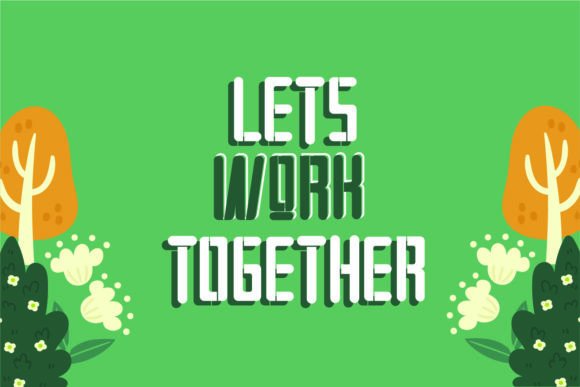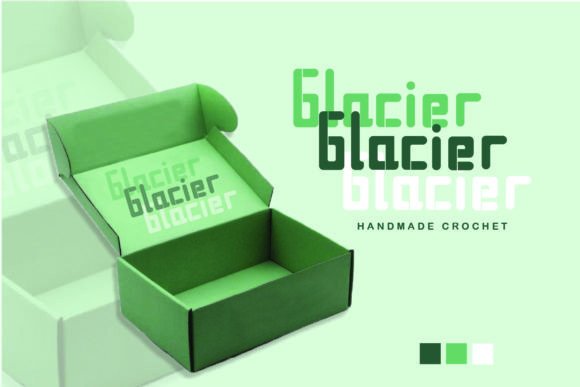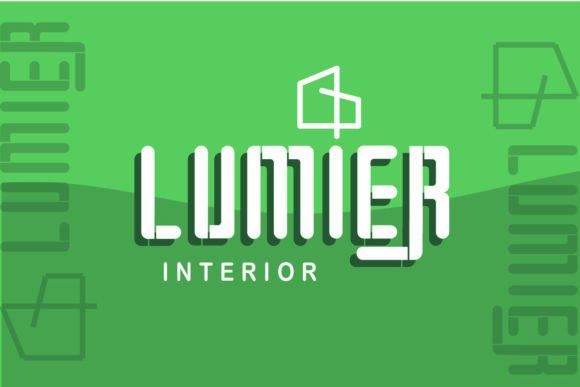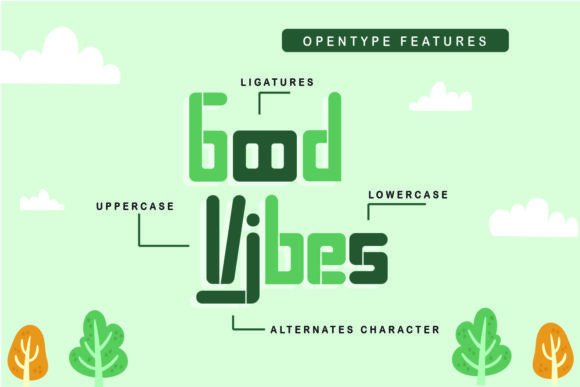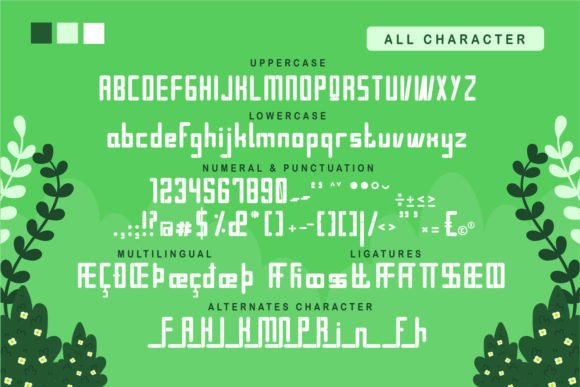
Introducing Fliponic Font: The Ultimate Urban Display Typeface
Are you a designer or crafter looking for a font that can add a touch of playfulness and urban style to your projects? Look no further than Fliponic Font! This versatile display typeface is perfect for a wide range of applications, from invitations and greeting cards to branding materials, business cards, quotes, posters, and more.
What is Fliponic Font?
Fliponic Font is a modern, urban display typeface designed to make a statement. Its playful and edgy design makes it perfect for creative projects that require a bold and eye-catching font. With its unique character set and sleek lines, Fliponic Font is sure to grab attention and leave a lasting impression.
Key Features of Fliponic Font
- Playful and Urban Style: Fliponic Font boasts a unique blend of playfulness and urban style, making it perfect for designers and crafters who want to add a touch of personality to their projects.
- Versatile: This font is suitable for a wide range of applications, from digital designs to print materials.
- Easy to Read: Despite its playful design, Fliponic Font is easy to read, even at smaller sizes.
- Highly Customizable: With a range of weights and styles, Fliponic Font can be tailored to suit your specific design needs.
Fliponic Font is a dream come true for designers and crafters who want to add a touch of personality to their projects. Whether you’re creating:
- Invitations: Make your invitations stand out with Fliponic Font’s playful and urban style.
- Greeting Cards: Add a touch of personality to your greeting cards with this versatile font.
- Branding Materials: Use Fliponic Font to create bold and eye-catching branding materials that reflect your brand’s personality.
- Business Cards: Make a statement with Fliponic Font on your business cards.
- Quotes and Posters: Use Fliponic Font to create inspiring quotes and posters that grab attention.
Why Choose Fliponic Font?
With so many fonts available, why choose Fliponic Font? Here are just a few reasons:
- Unique Design: Fliponic Font boasts a unique design that will set your projects apart from the rest.
- Time-Saving: With Fliponic Font, you can create professional-looking projects in no time.
Tips for Using Fliponic Font
Here are a few tips for getting the most out of Fliponic Font:
- Experiment with Different Sizes: Fliponic Font looks great at a range of sizes, from small to large.
- Pair with Other Fonts: Try pairing Fliponic Font with other fonts for a unique and interesting look.
- Use on Different Backgrounds: Fliponic Font looks great on a range of backgrounds, from light to dark.